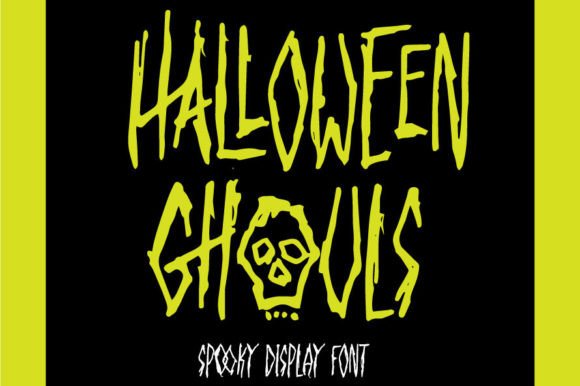
Enter the realm of the eerie and supernatural with Halloween Ghouls, the display font that casts a spellbinding charm over any project it graces. Its haunting elegance and intricate details will add a touch of darkness and mystery to your designs, capturing the essence of the supernatural.
Picture this: a Halloween invitation with text that bleeds with an eerie ambiance, setting the tone for a spooky soirée that will leave your guests spellbound. Or, imagine a horror movie poster adorned with this font, sending shivers down the audience's spines as it conjures images straight from the crypt.
For lovers of the macabre, Halloween Ghouls is the perfect companion for your gothic literature. It adds an authentic touch to your tales of the supernatural, making your words leap off the page and embrace the darkness.
Unleash your inner witch with Halloween Ghouls. Perfectly suited for witchcraft-themed products, shops, and merchandise, this font exudes a mystical aura, captivating customers with its intricate details.
So, embrace the supernatural and let Halloween Ghouls haunt your designs. Its easy-to-use PUA encoding ensures that you can effortlessly access an array of amazing glyphs and ligatures, adding depth and intrigue to your projects. Unleash your creativity and craft designs that evoke the spirit of the dark and unknown.